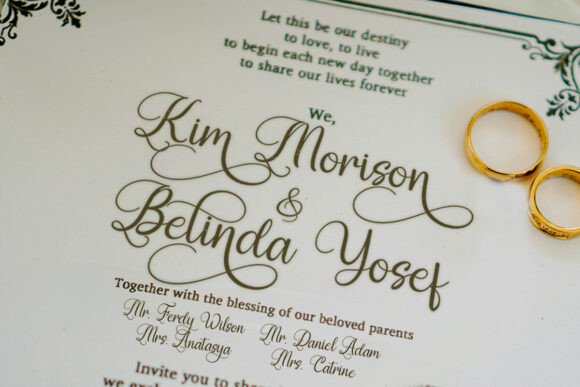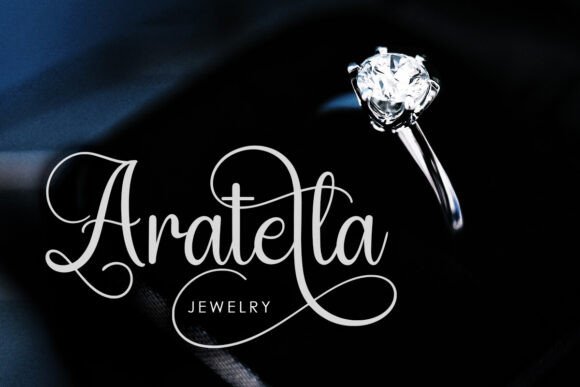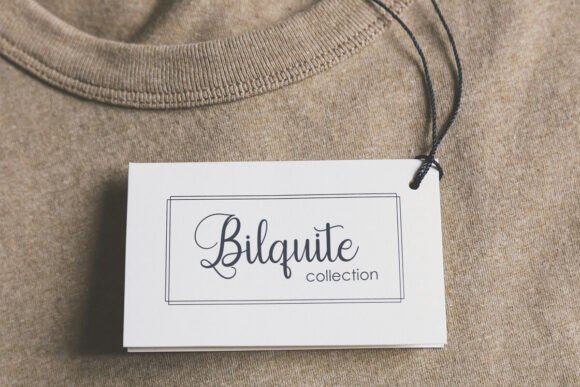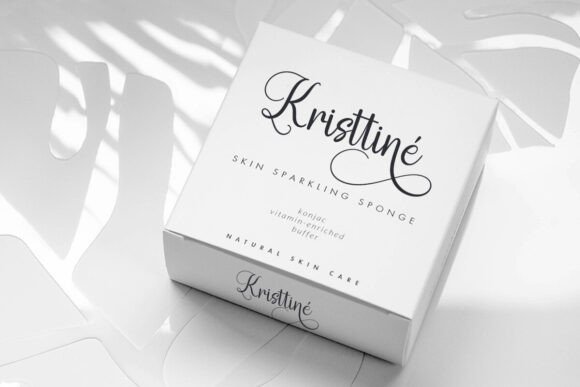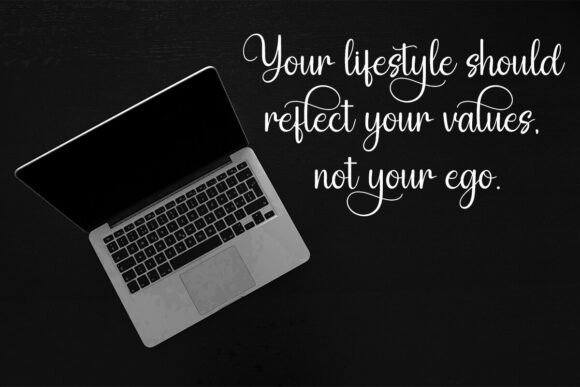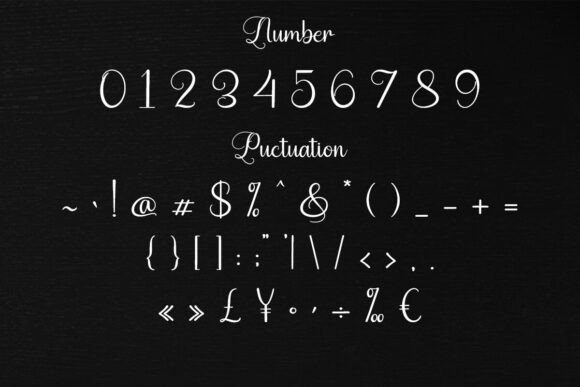
Introducing Daylight Mystery: The Elegant Handwritten Script Font
Are you looking for a font that exudes elegance, sophistication, and a touch of personal charm? Look no further than Daylight Mystery, a refined handwritten script font that is perfect for designers and crafters seeking to add a high-end feel to their projects. In this article, we’ll dive into the features and benefits of Daylight Mystery, and explore how this beautiful font can elevate your designs.
The Essence of Elegance
Daylight Mystery is a masterfully crafted font that captures the essence of elegance and refinement. With its fluid strokes and natural letterforms, this typeface brings a handcrafted feel that’s perfect for high-end branding, wedding designs, social media graphics, and heartfelt quotes. The font’s attention to flow and rhythm creates a sense of movement and harmony, making it ideal for designs that require a touch of sophistication.
Key Features of Daylight Mystery
So, what sets Daylight Mystery apart from other fonts? Here are some of its key features:
- Fluid strokes and natural letterforms: Daylight Mystery boasts fluid strokes and natural letterforms that give it a handcrafted feel.
- Graceful ligatures and alternate characters: The font features graceful ligatures and alternate characters that allow you to create unique, signature-style typography.
- High-end feel: Daylight Mystery is perfect for high-end branding, wedding designs, and other applications that require a touch of sophistication.
Daylight Mystery is a versatile font that can be used for a wide range of projects, including:
- Wedding invitations & stationery: Add a touch of elegance to your wedding designs with Daylight Mystery.
- Branding for boutiques, beauty, and lifestyle products: Use Daylight Mystery to create sophisticated branding for your boutique, beauty, or lifestyle products.
- Feminine logos and signature-style marks: Create beautiful, feminine logos and signature-style marks with Daylight Mystery.
- Social media posts & quotes: Add a touch of elegance to your social media posts and quotes with Daylight Mystery.
- Packaging and label designs: Use Daylight Mystery to create beautiful packaging and label designs that stand out.
Why Choose Daylight Mystery?
So, why should you choose Daylight Mystery for your next project? Here are just a few reasons:
- Elegance and sophistication: Daylight Mystery adds a touch of elegance and sophistication to any design.
- Unique and signature-style typography: The font’s graceful ligatures and alternate characters allow you to create unique, signature-style typography.
- High-end feel: Daylight Mystery is perfect for high-end branding, wedding designs, and other applications that require a touch of sophistication.
Tips for Using Daylight Mystery
Here are a few tips for using Daylight Mystery in your designs:
- Use it sparingly: Daylight Mystery is a elegant font, so use it sparingly to add a touch of sophistication to your designs.
- Experiment with different sizes and colors: Experiment with different sizes and colors to find the perfect combination for your design.
- Pair it with other fonts: Pair Daylight Mystery with other fonts to create a unique and interesting typography.
In conclusion, Daylight Mystery is a beautiful and elegant handwritten script font that is perfect for designers and crafters seeking to add a high-end feel to their projects. With its fluid strokes, natural letterforms, and graceful ligatures, this font is sure to elevate your designs and add a touch of sophistication. Whether you’re designing wedding invitations, branding for boutiques, or social media graphics, Daylight Mystery is the perfect choice.